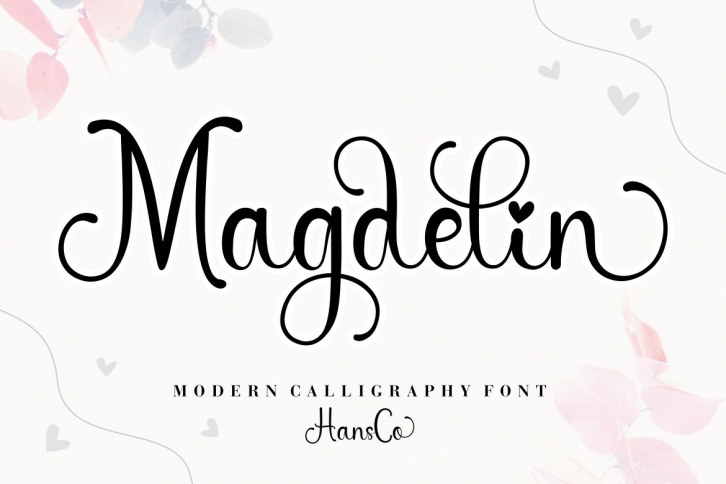
Magdelin is a modern and elegant script font. This font is neatly crafted and highly detailed. It is also PUA encoded which means you can access all glyphs and swashes with ease!